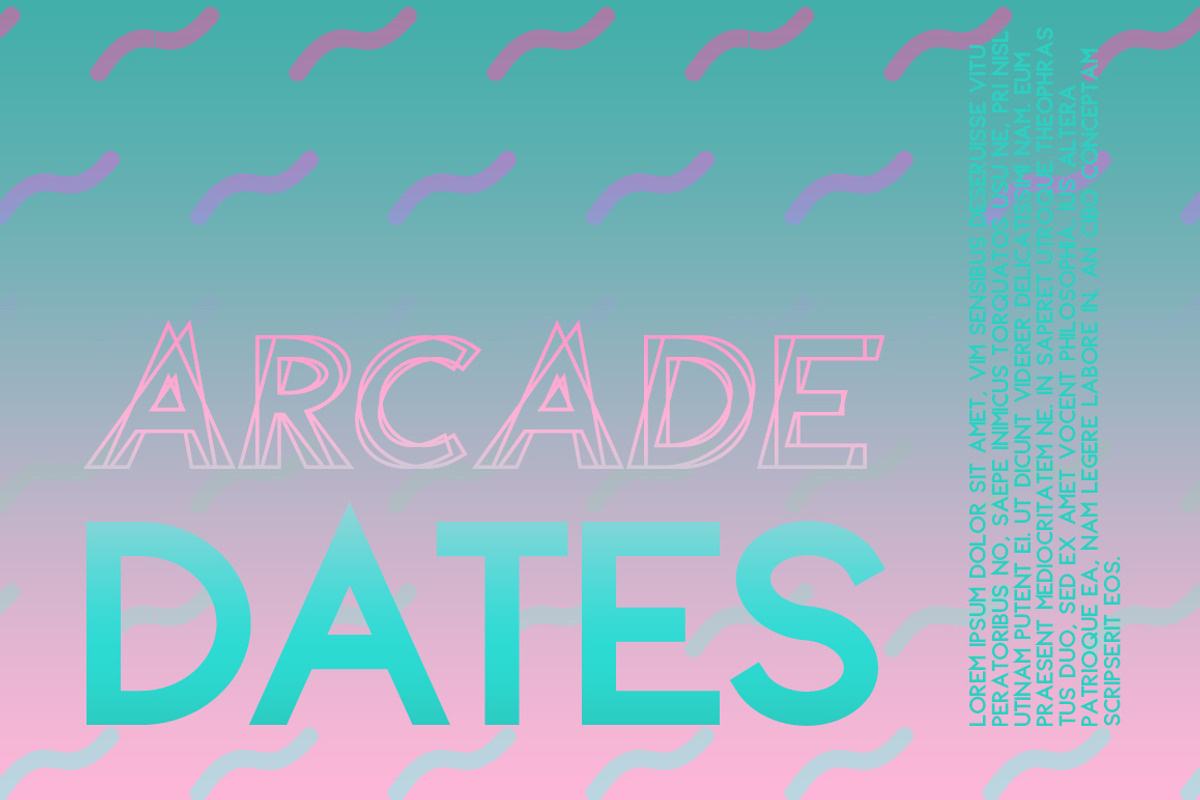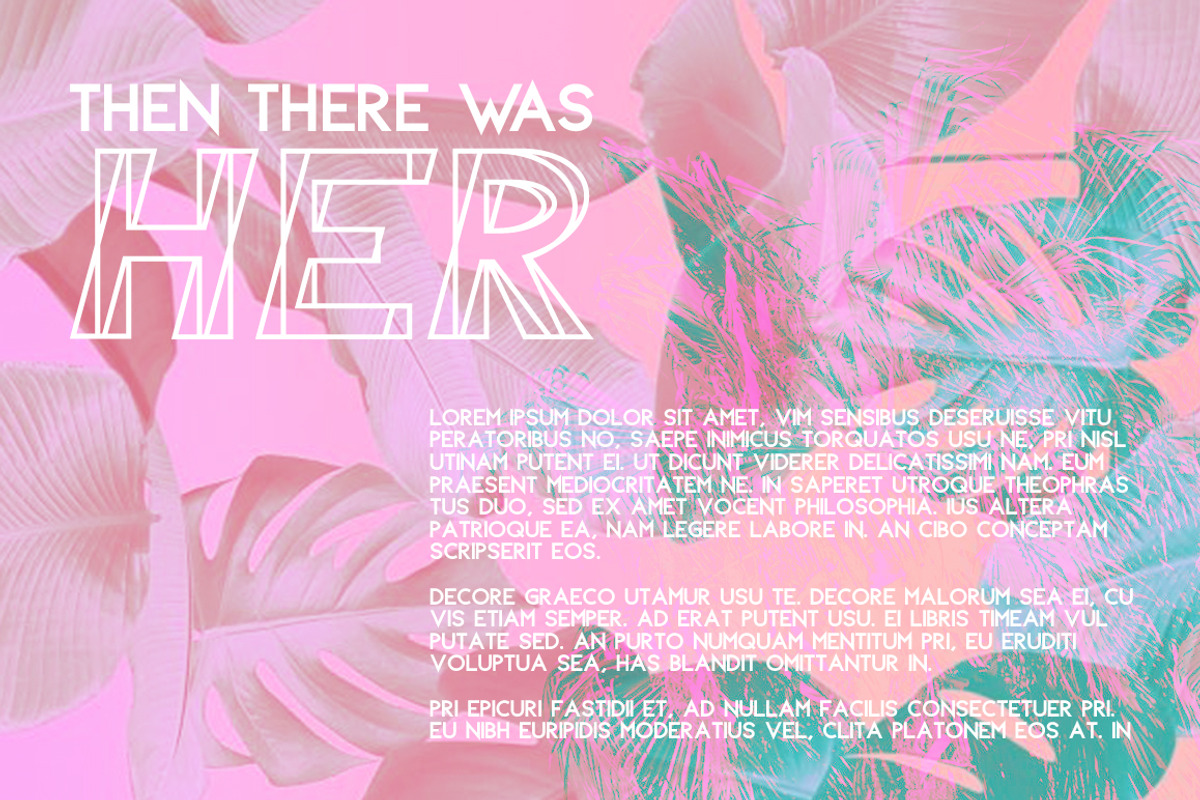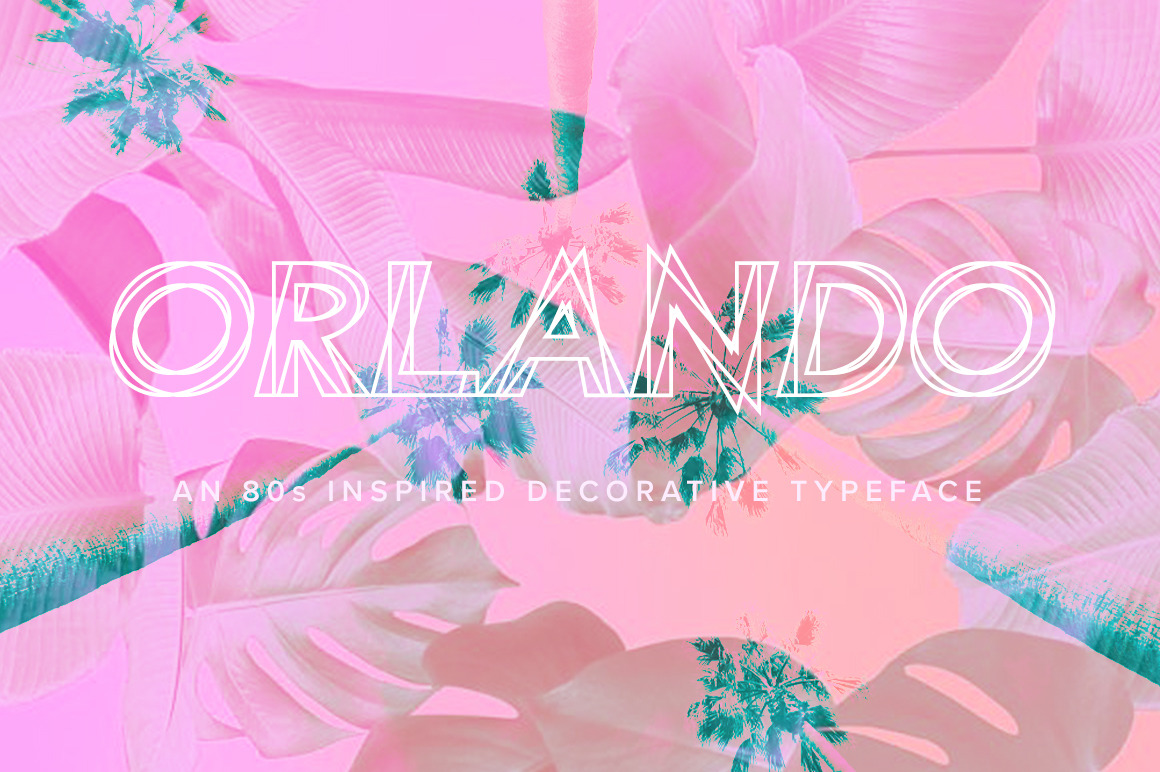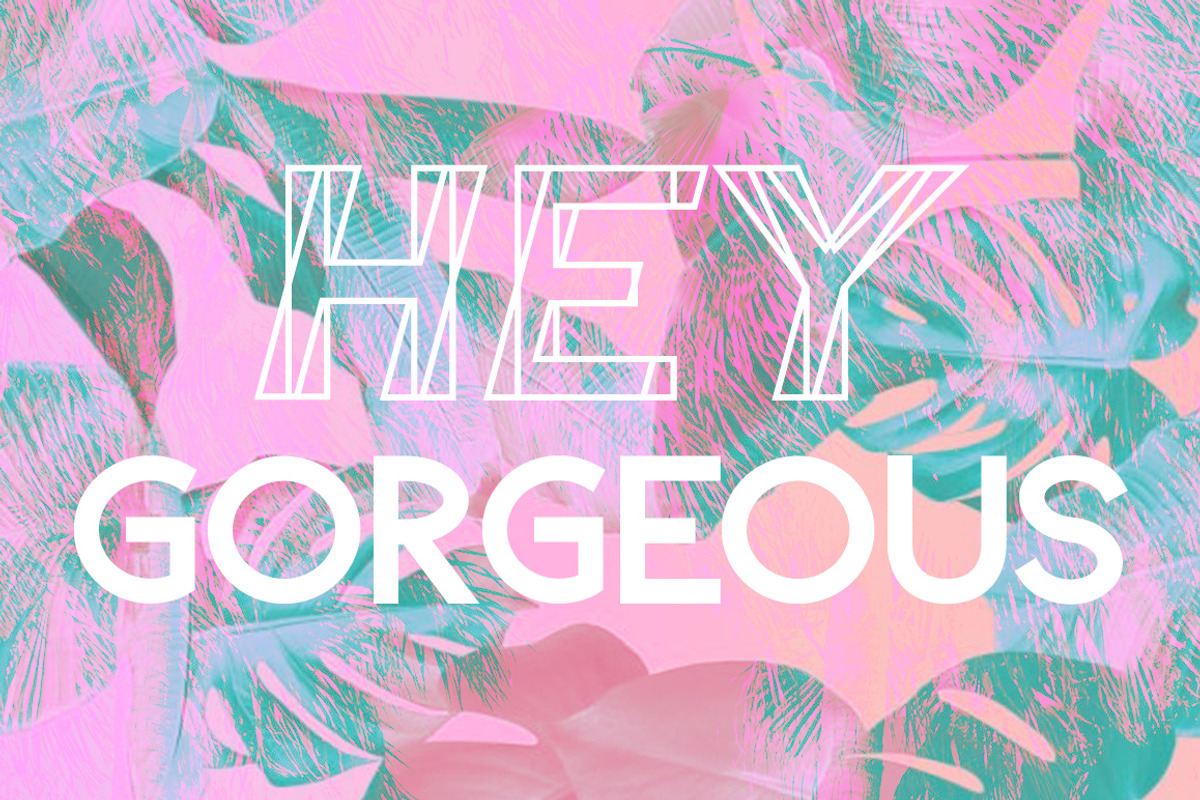
Orlando | An 80's Inspired Font
Orlando is a geometric, retro, and 80s-inspired all caps sans serif font that's perfect for whatever attention-grabbing project you're working on! With two different weights (Pop & Regular), you have a perfect setup to pair these rad fonts together and make something amazing!
- capital letters
- numbers & basic punctuation
- two weights (pop & regular)